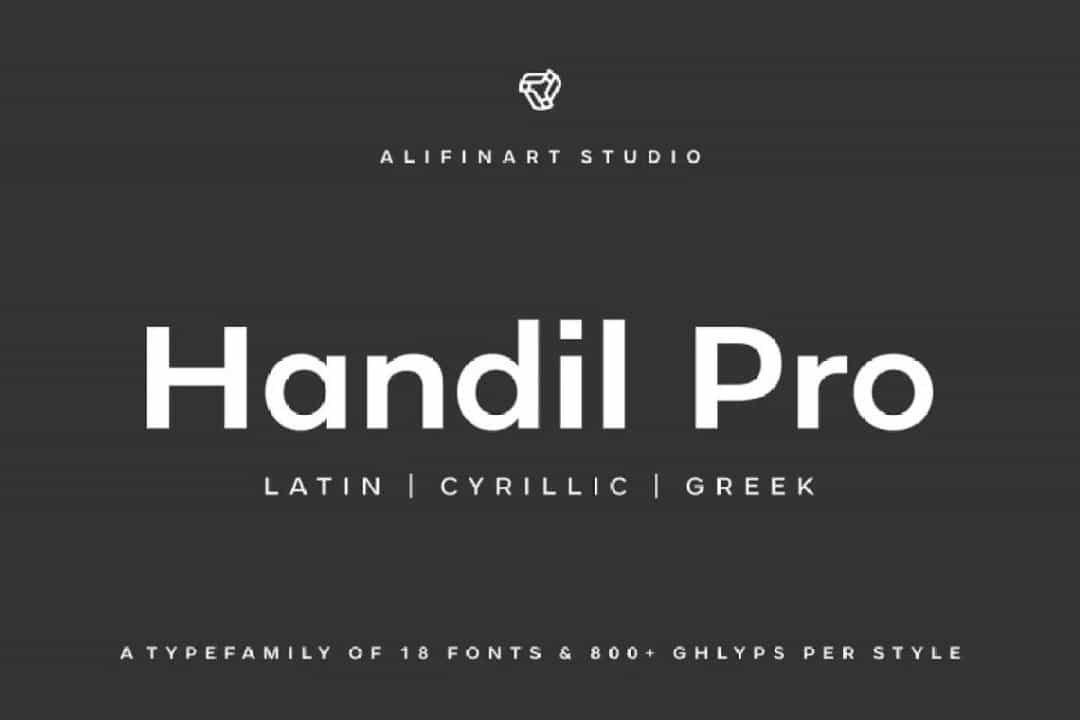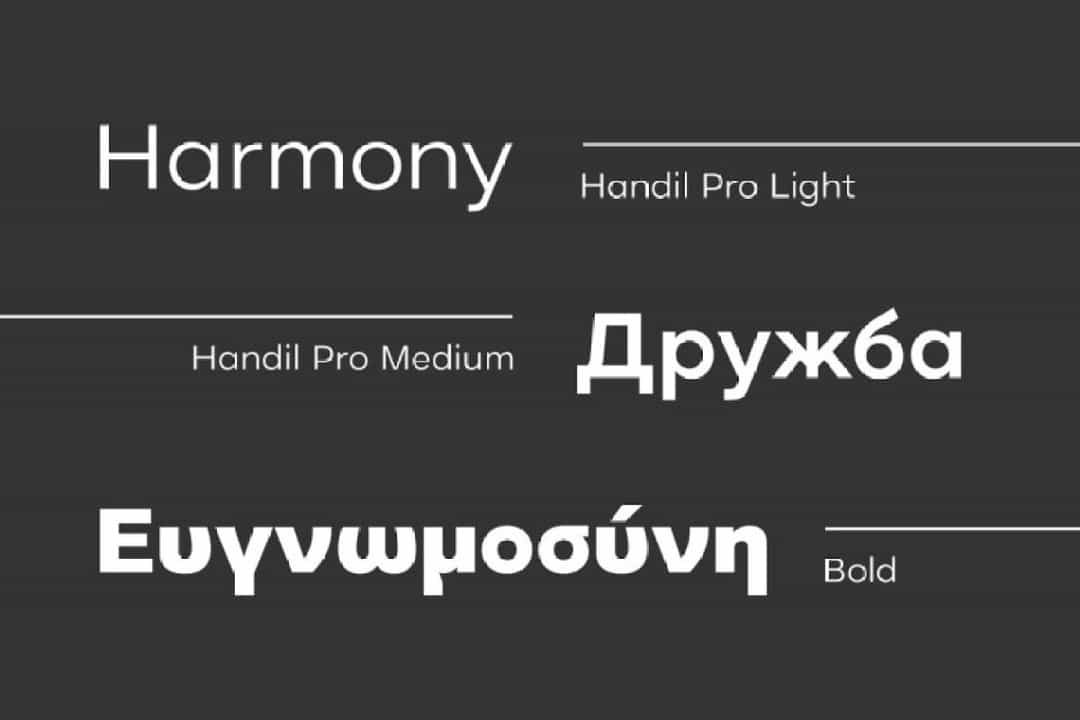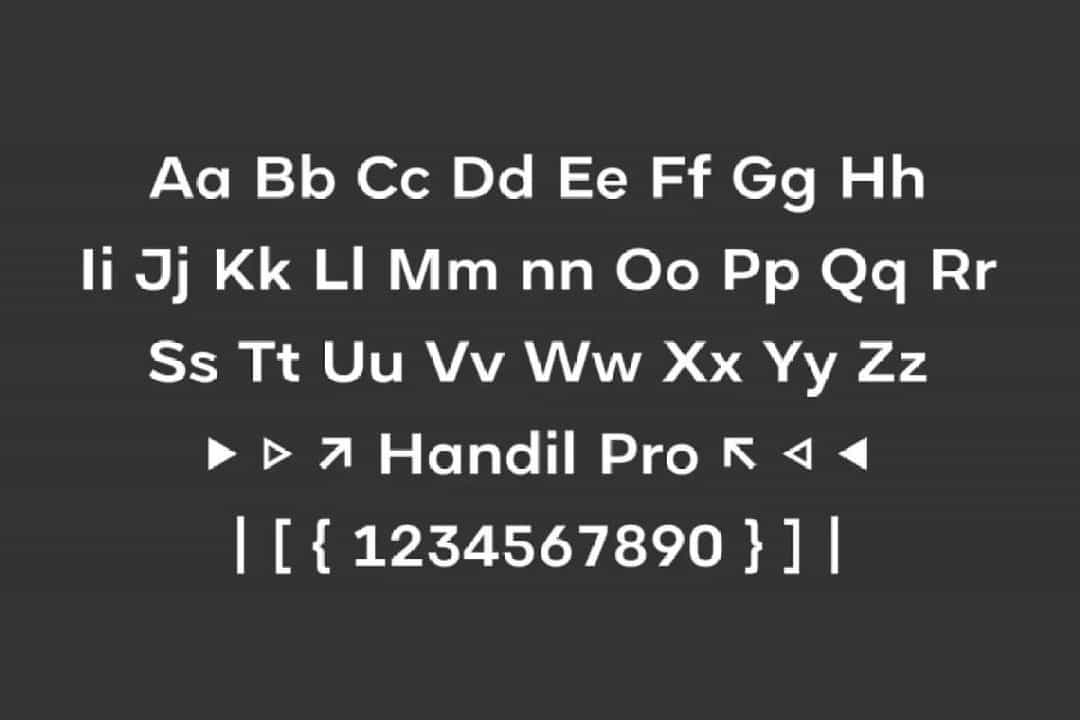
Handil Pro is an geometric sans-serif font designed specifically to complement Mustica Pro font family. This font’s geometric design can be adjusted optically or with enhanced gestures for optimal use; its name derives from two endangered and extinct species found near it: Handil.